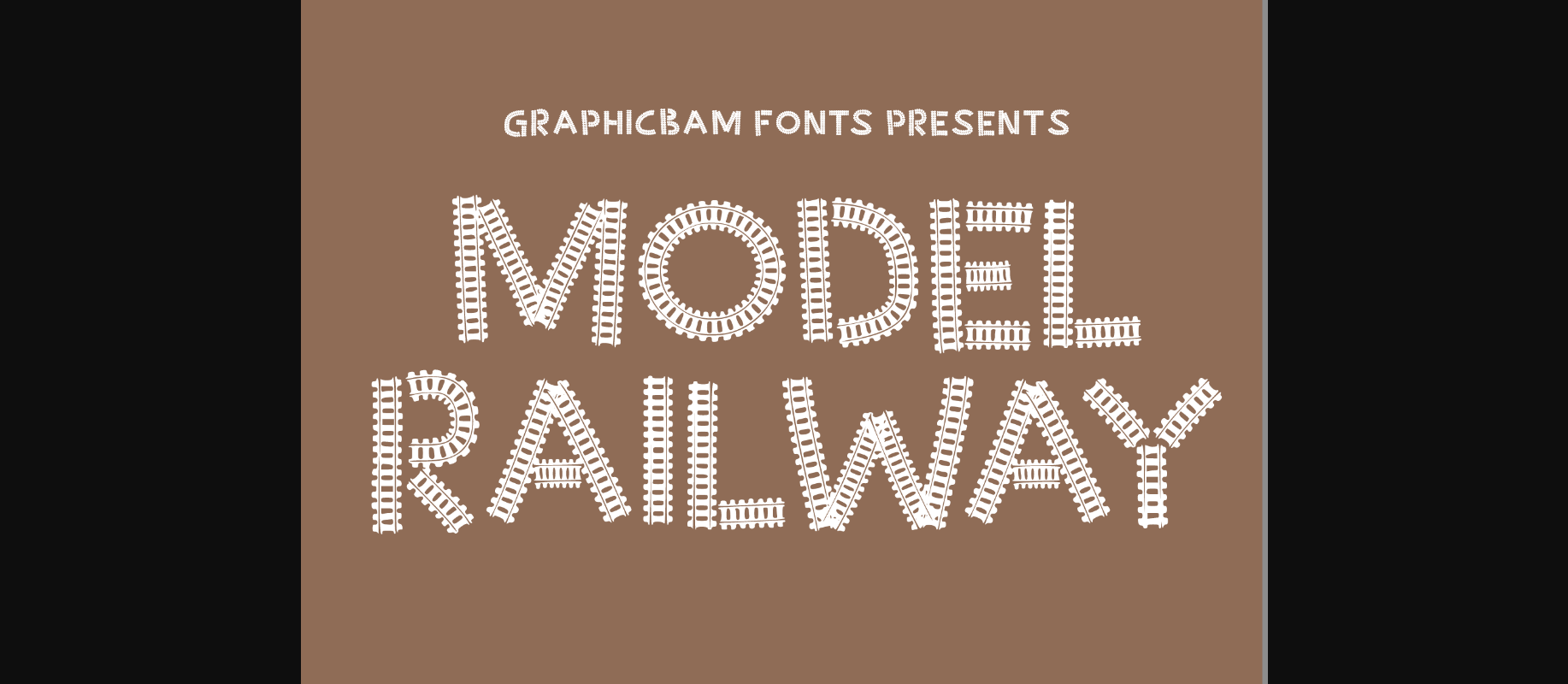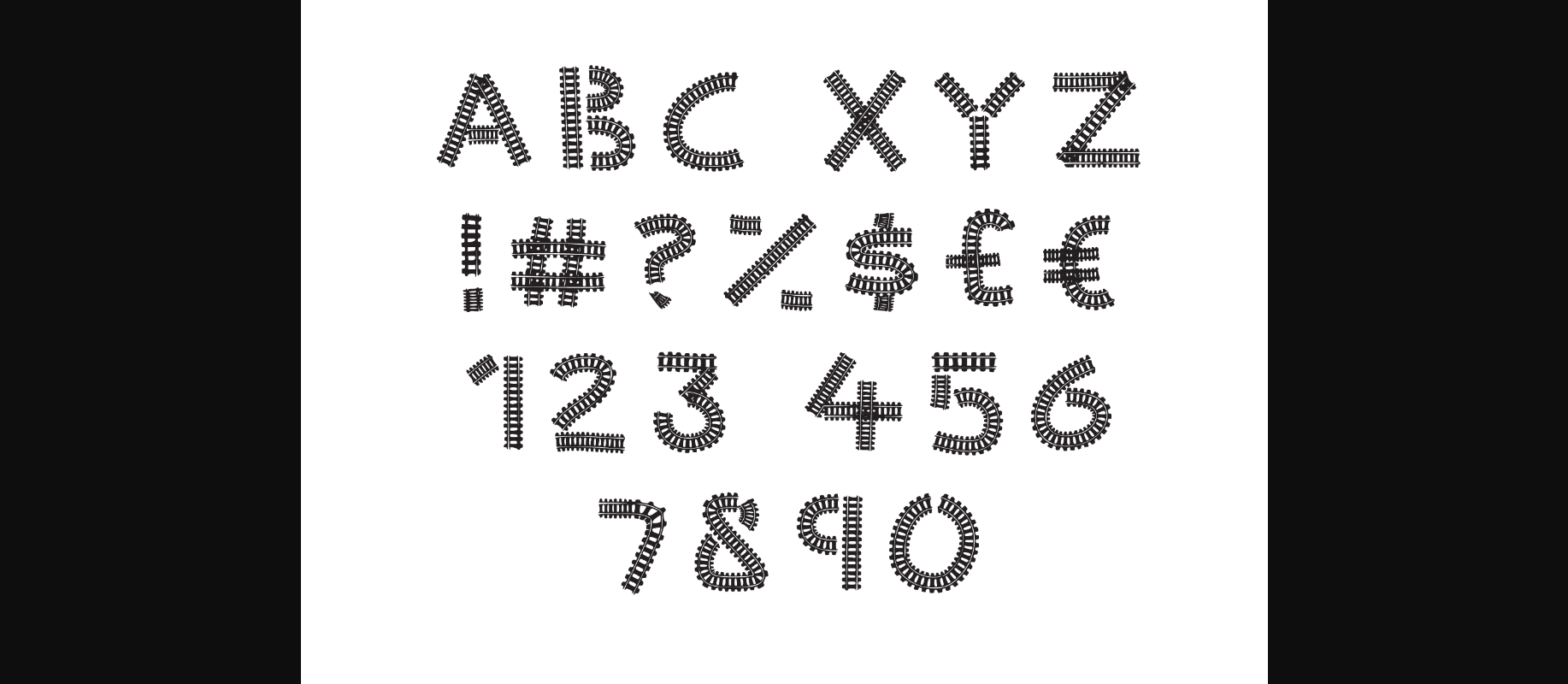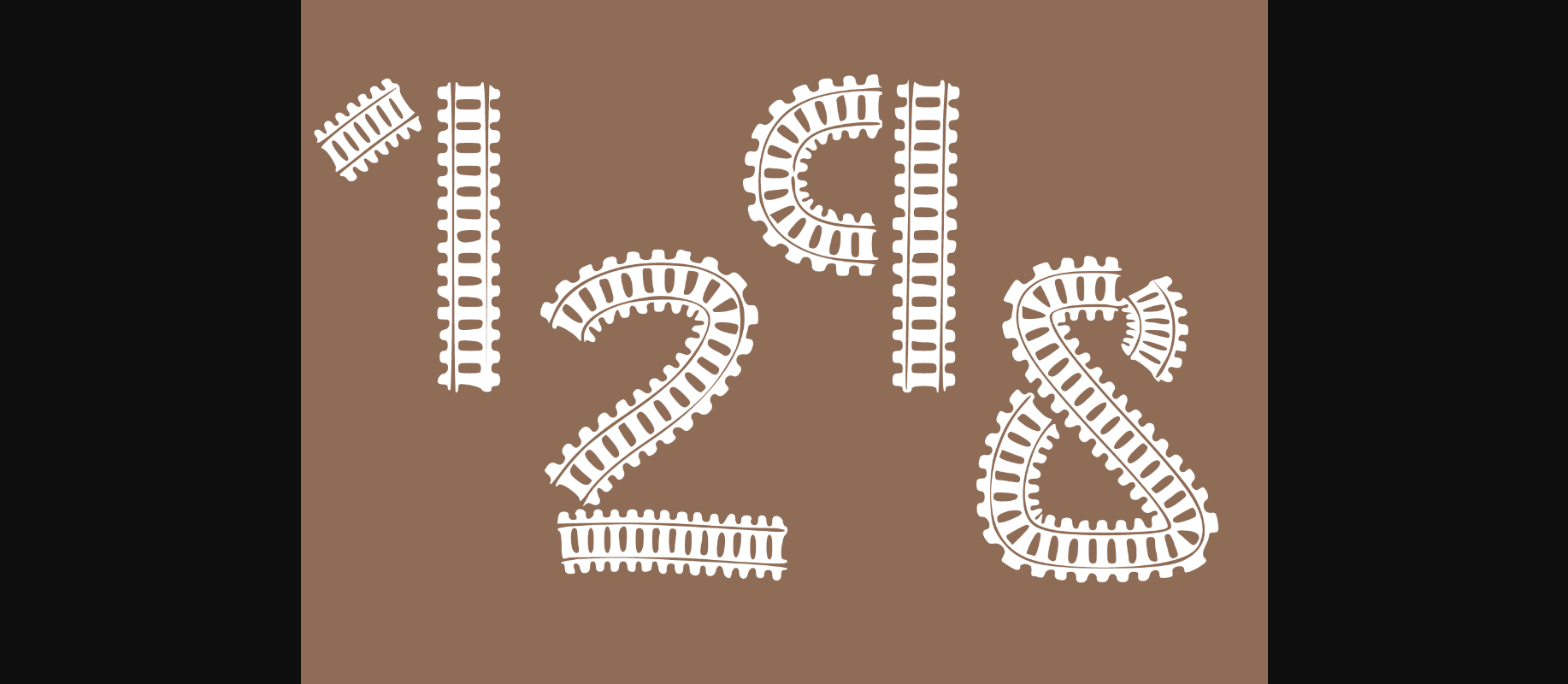
About Model Railway Font
Model Railway is a fun looking decorative font, with characters made of railway tracks. Love trains big and small? Steam or diesel? Add a playful touch to your designs with this unique train focused font!